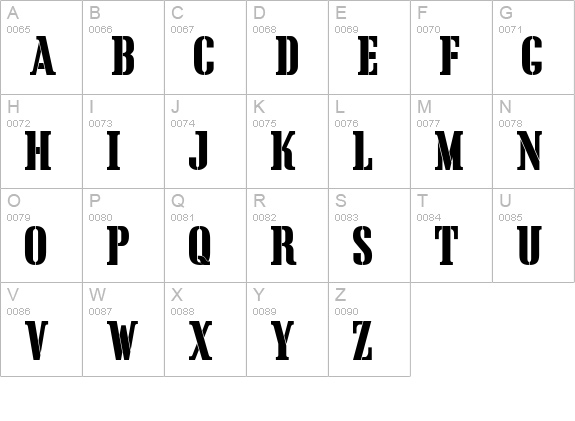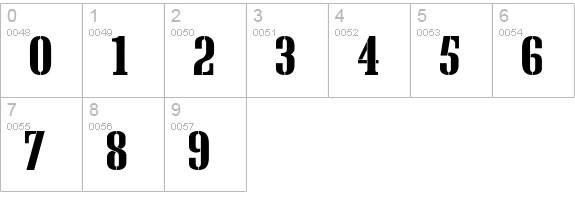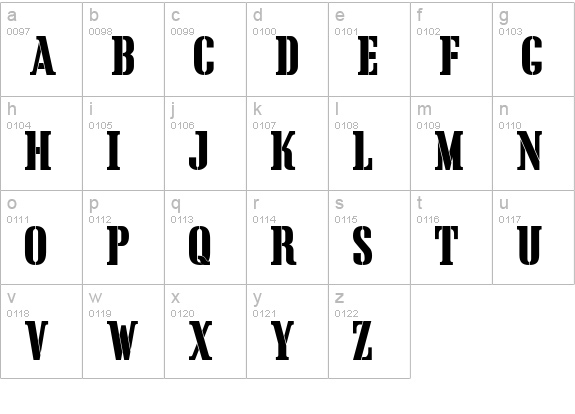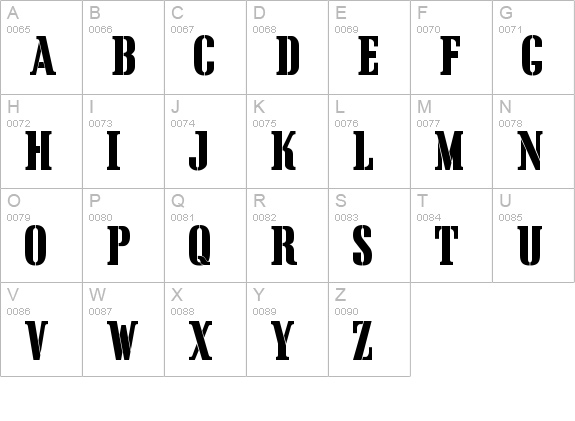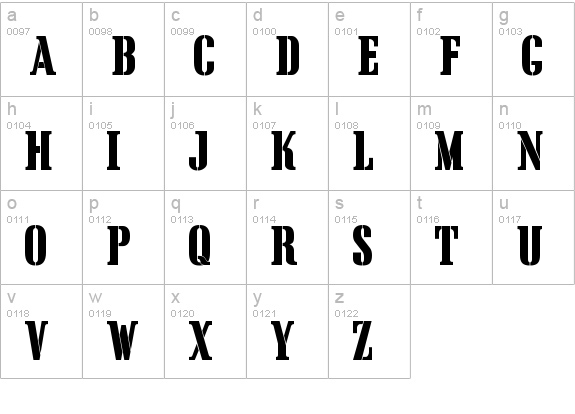
CargoCrate Font Details
CargoCrate font is a versatile and modern typeface that is perfect for a wide range of design projects. Its bold and sturdy letterforms make it ideal for creating eye-catching headlines, logos, and branding materials. With a unique industrial-inspired design, CargoCrate exudes a sense of strength and reliability. This versatile font is free to download at FontsMarket.com, making it accessible to designers of all skill levels. Whether you're working on a print design, web project, or any other creative endeavor, CargoCrate is sure to make a bold statement. Add this font to your collection today and let your designs stand out from the crowd.